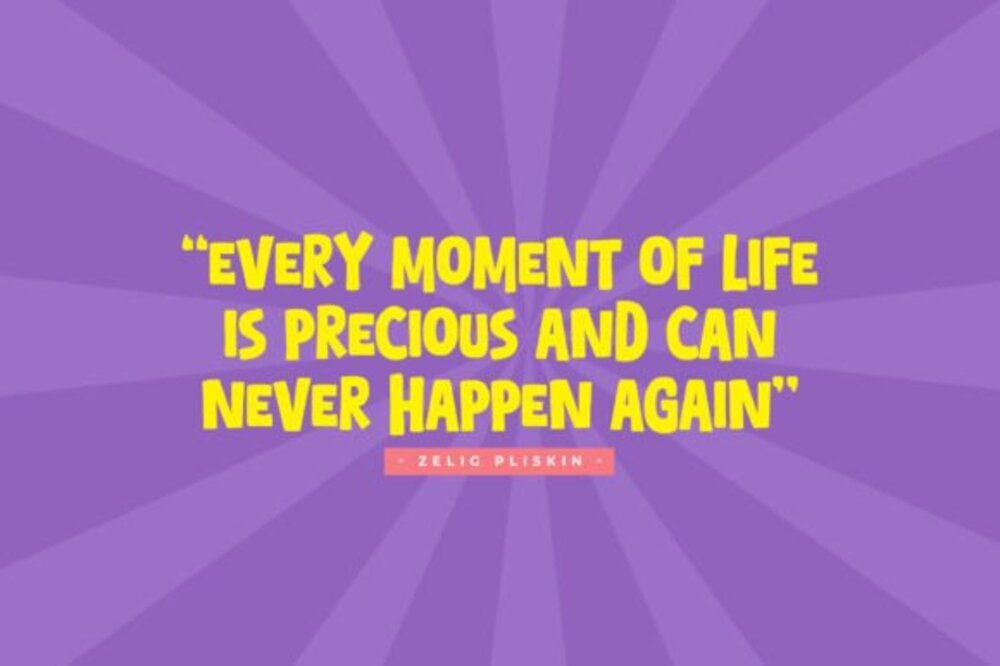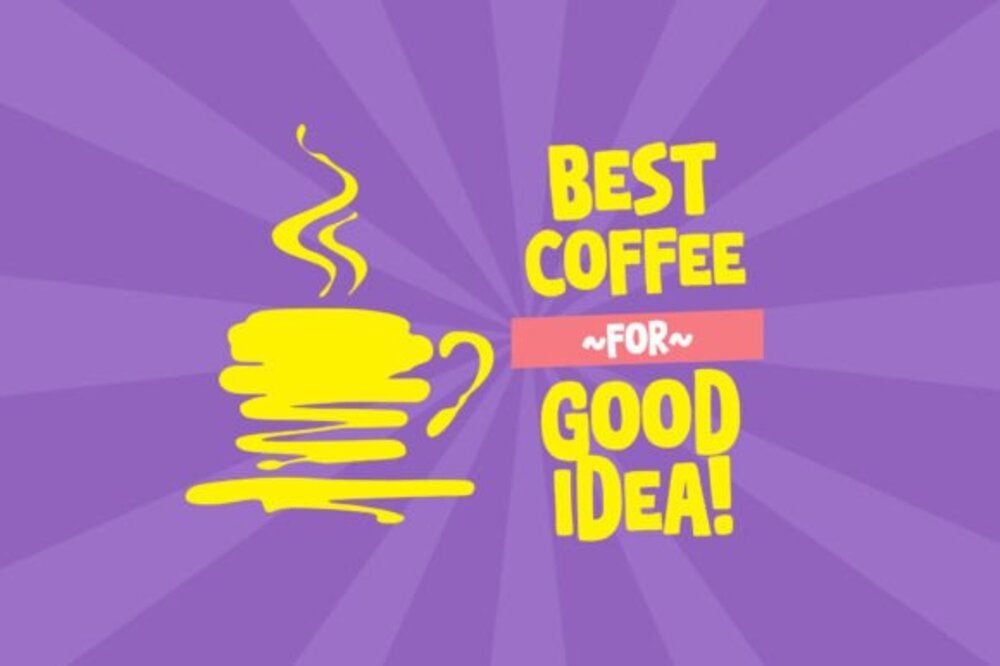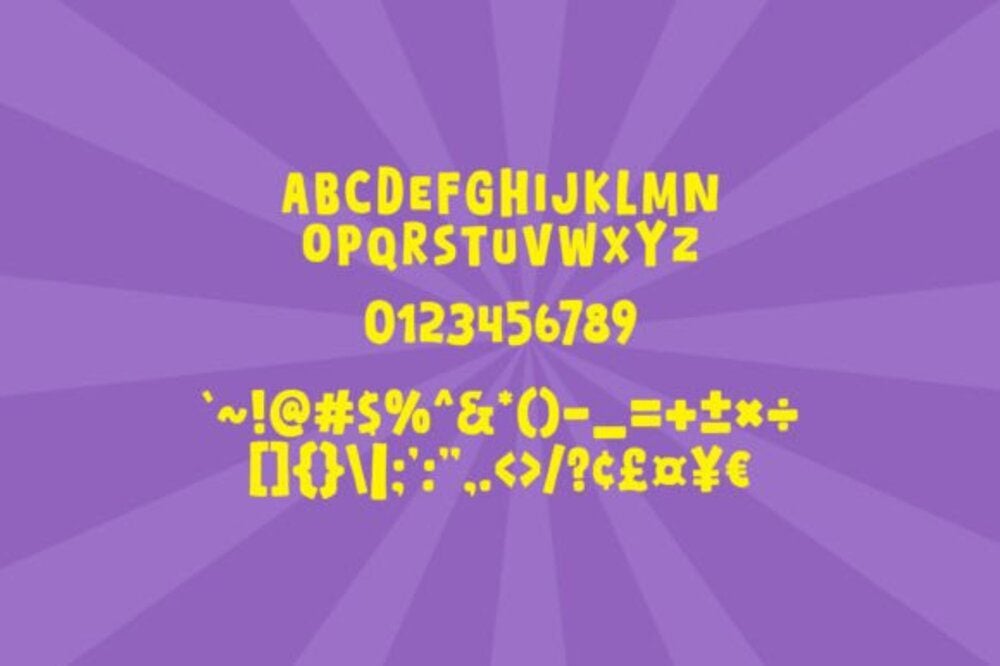
Yay Holiday Font
Yay Holiday is a festive and cheerful typeface that embodies the joy and warmth of celebrations. With its playful curves and whimsical details, it’s perfect for holiday cards, party invitations, and seasonal decor. This versatile font radiates a sense of fun and excitement, bringing a lively, celebratory vibe to every project, making your designs sparkle with holiday cheer.